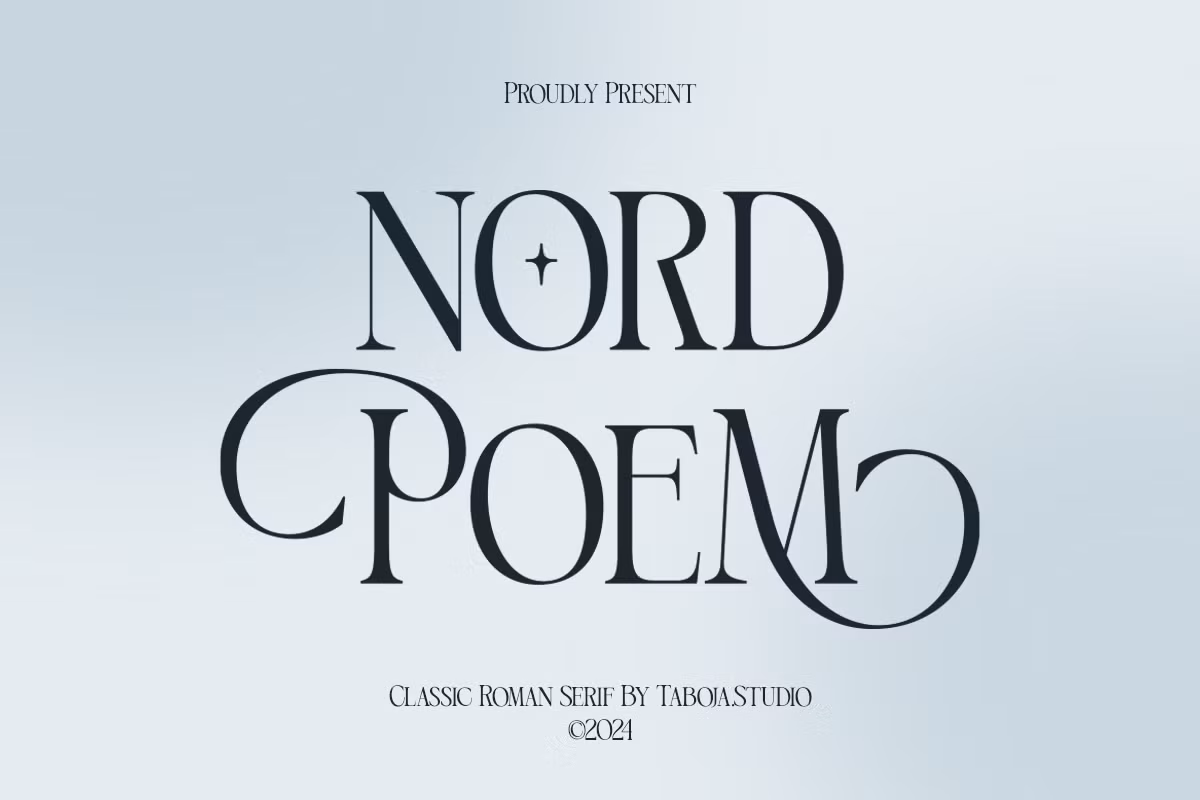
TBJ Nord Poem Classic Roman Serif Font Free Download is a timeless and sophisticated typeface inspired by traditional Roman lettering. With its sharp serifs, balanced proportions, and elegant details, this font is perfect for editorial design, luxury branding, book covers, and historical themes. It brings a sense of prestige and refinement to any creative project.
Whether you're designing for print or digital, TBJ Nord Poem adds classical beauty and authority to your work. Try it for free in personal use, and elevate your design game with one of the most elegant Roman serif fonts available today.